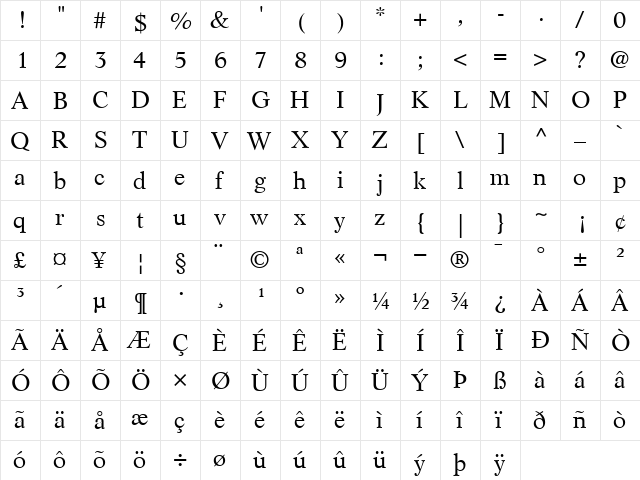
LifeRoman Roman
Design Context for LifeRoman Typeface
LifeRoman offers clean, dependable letterforms without strong stylistic allegiance, making it a practical choice for designers who need flexibility.